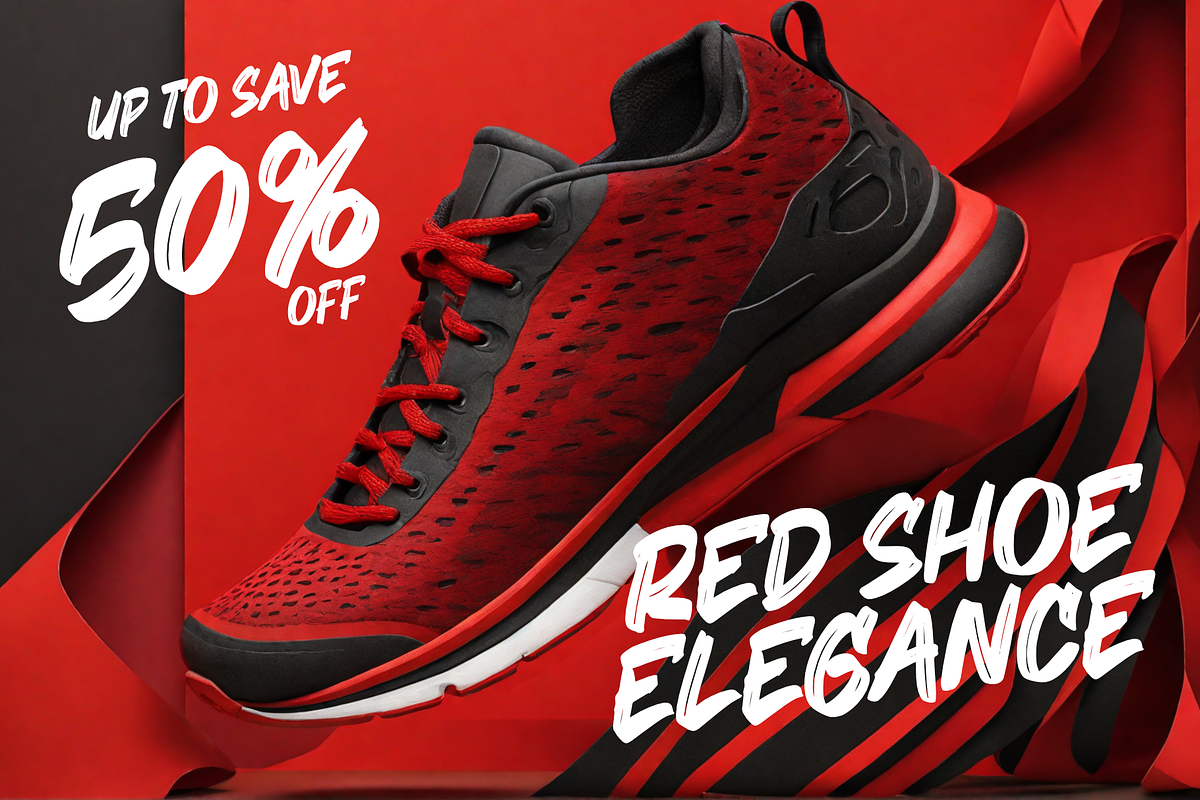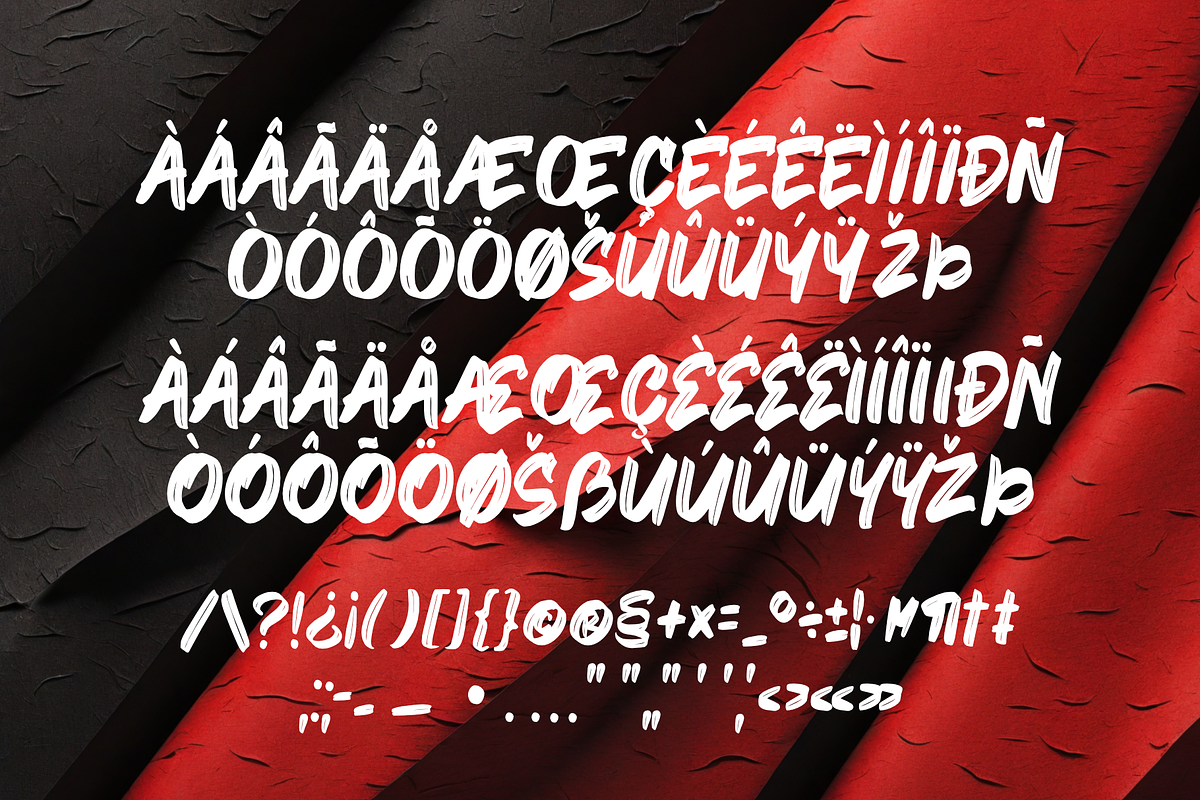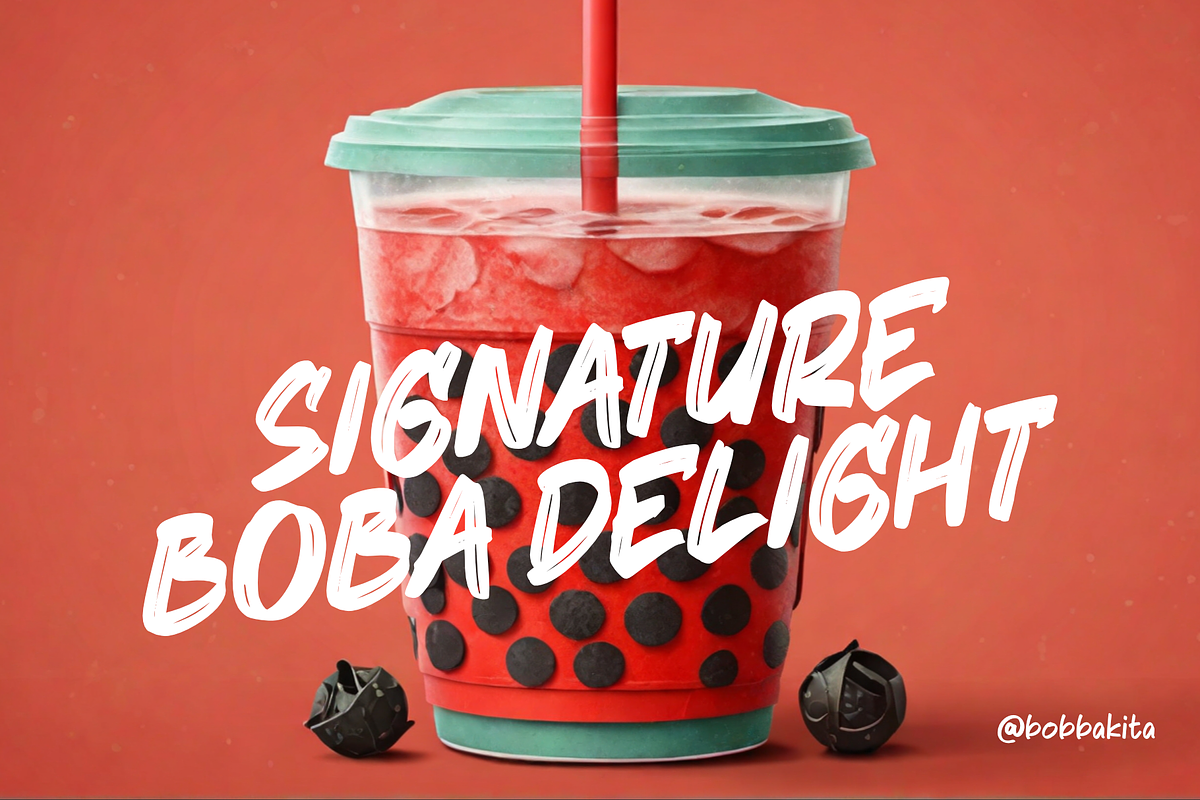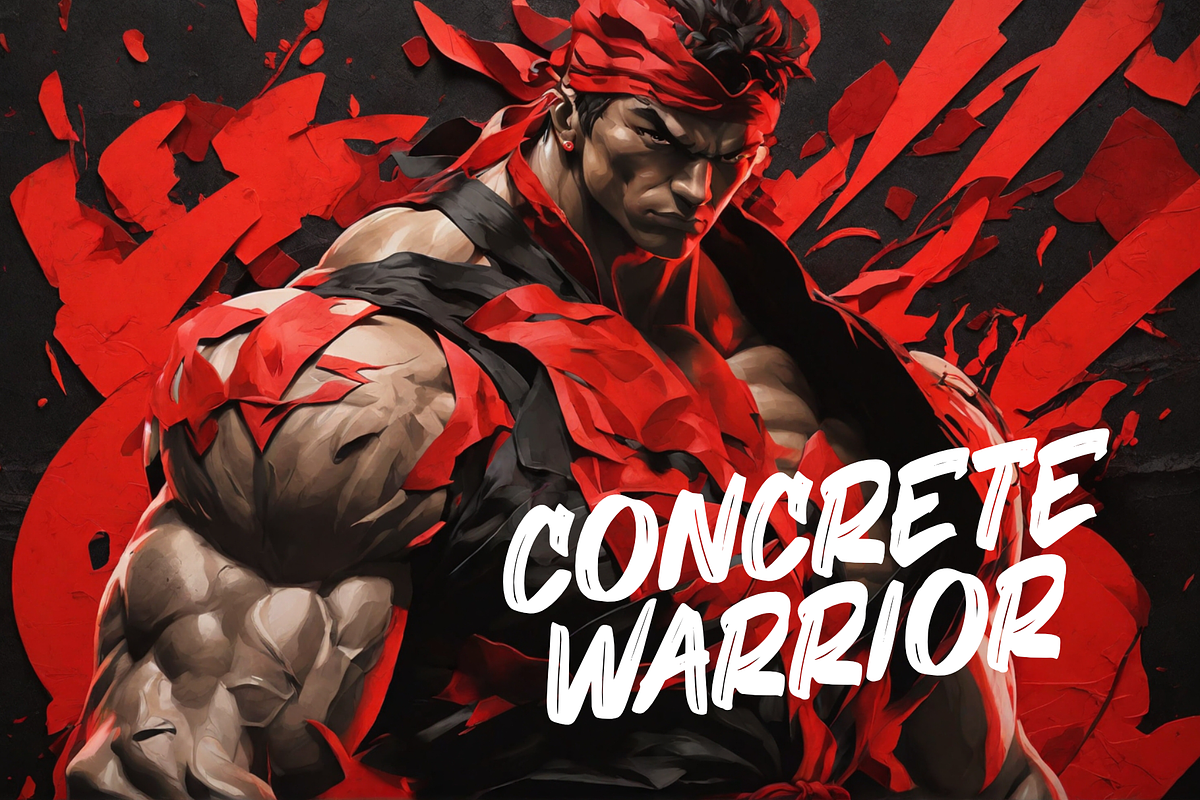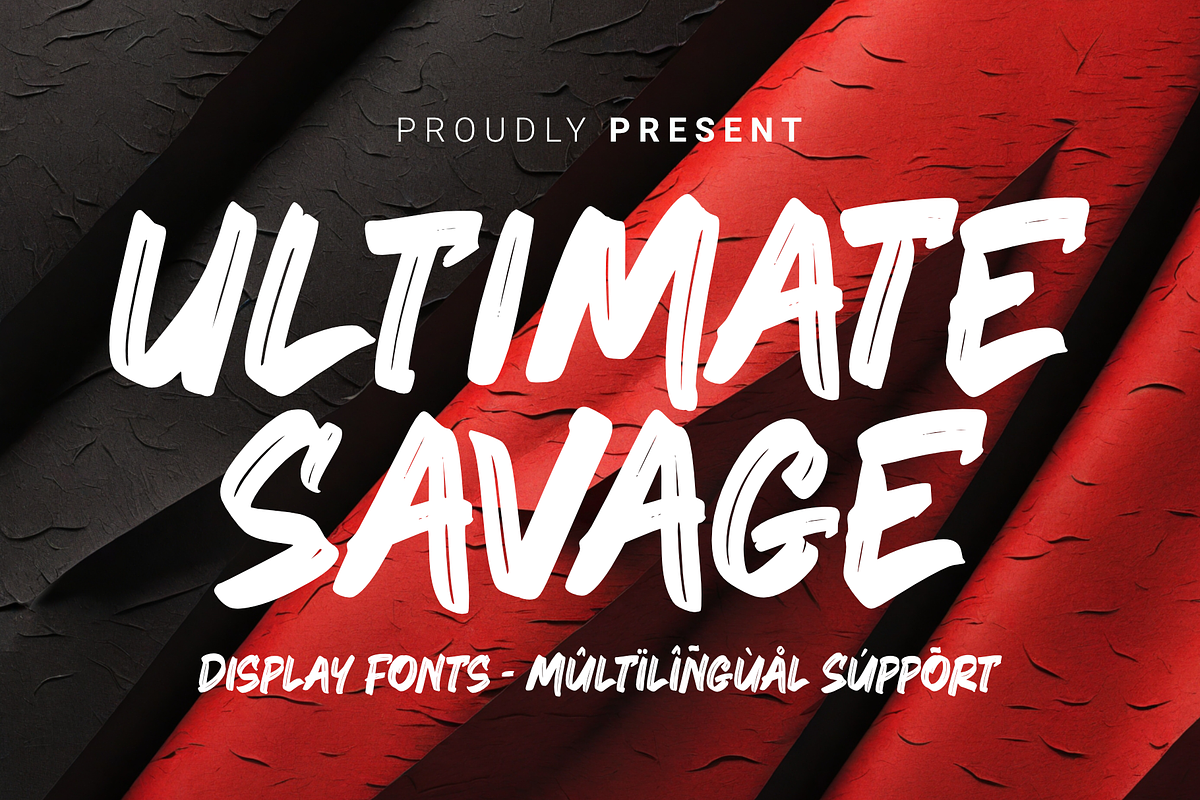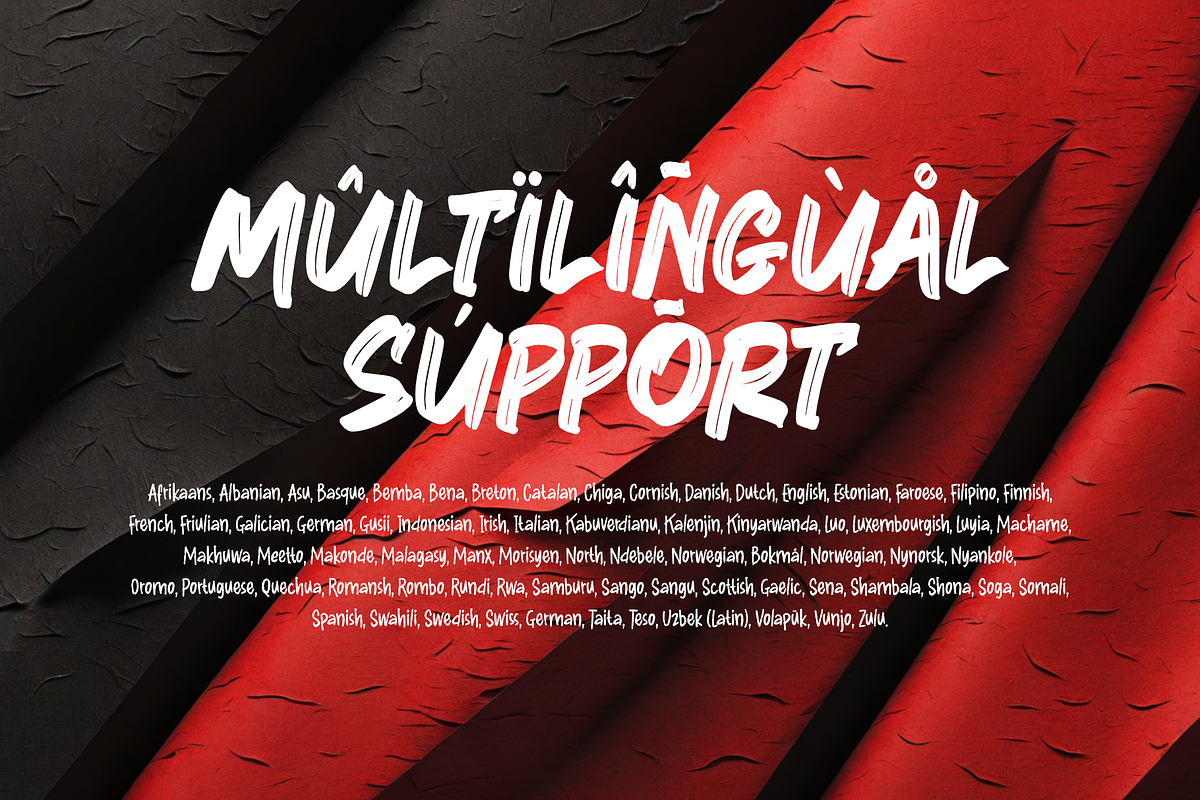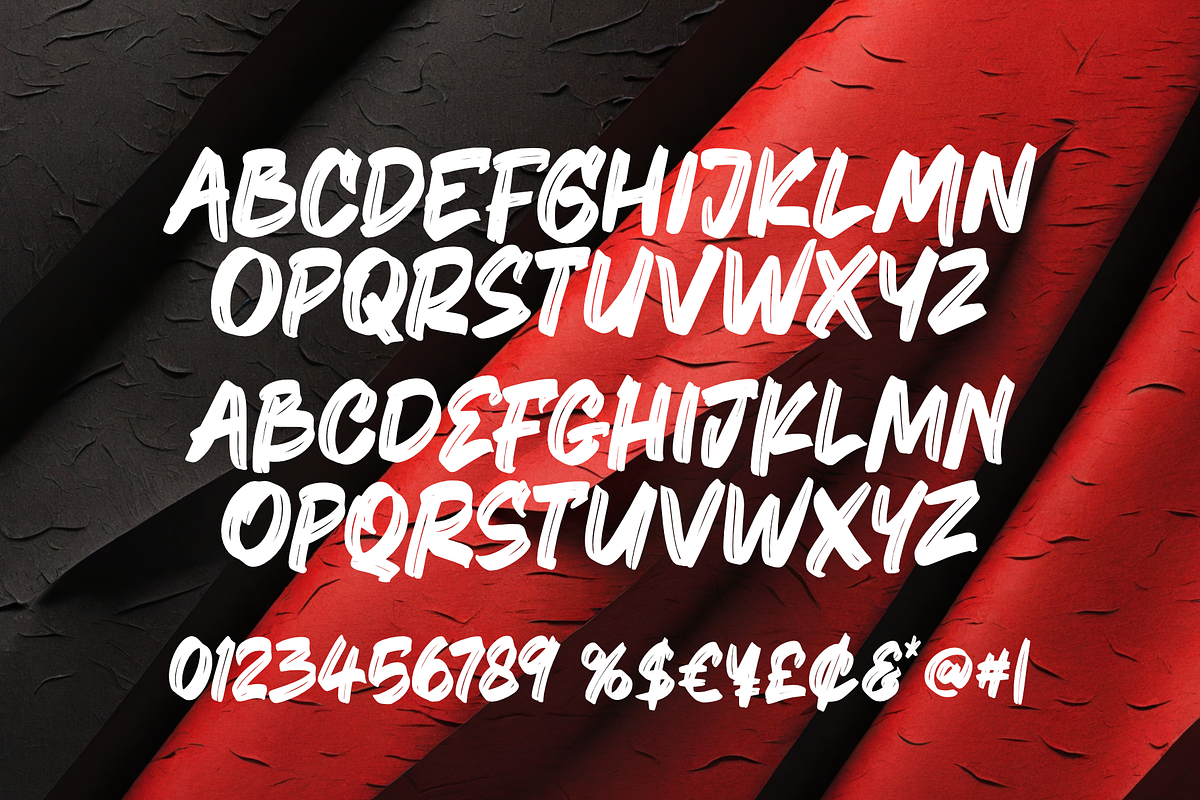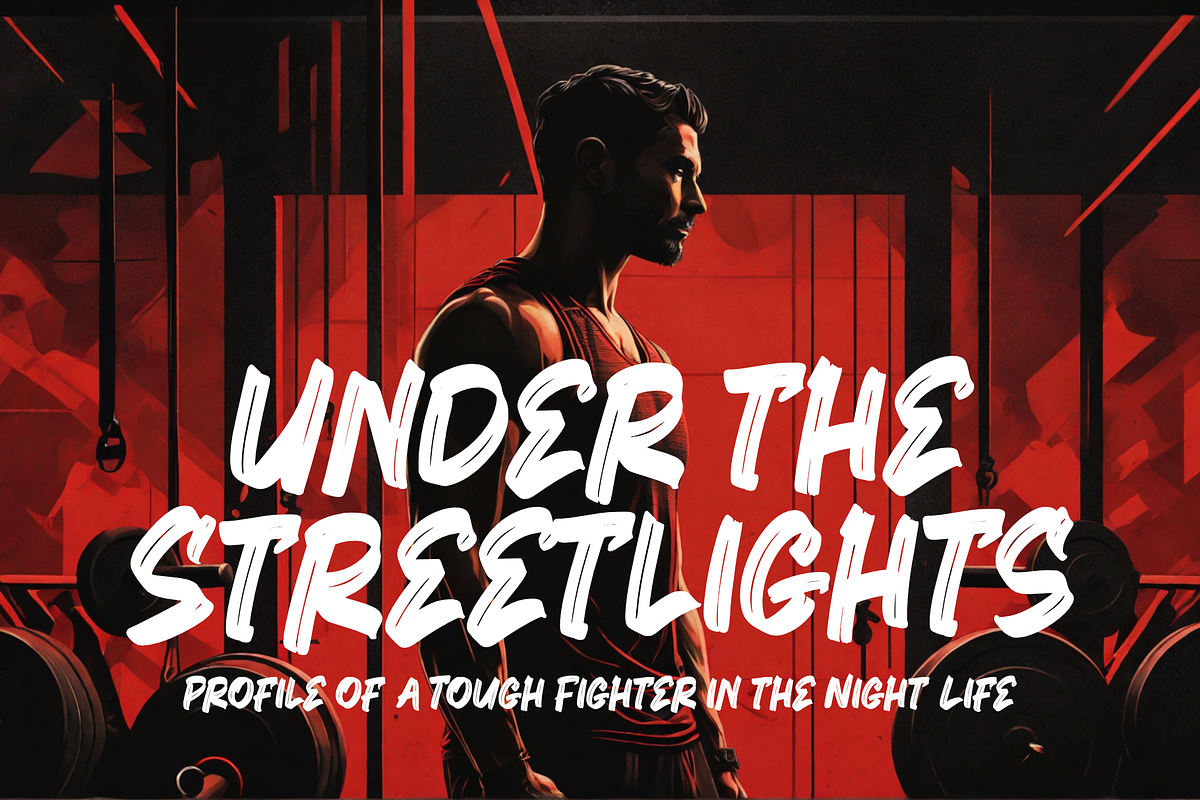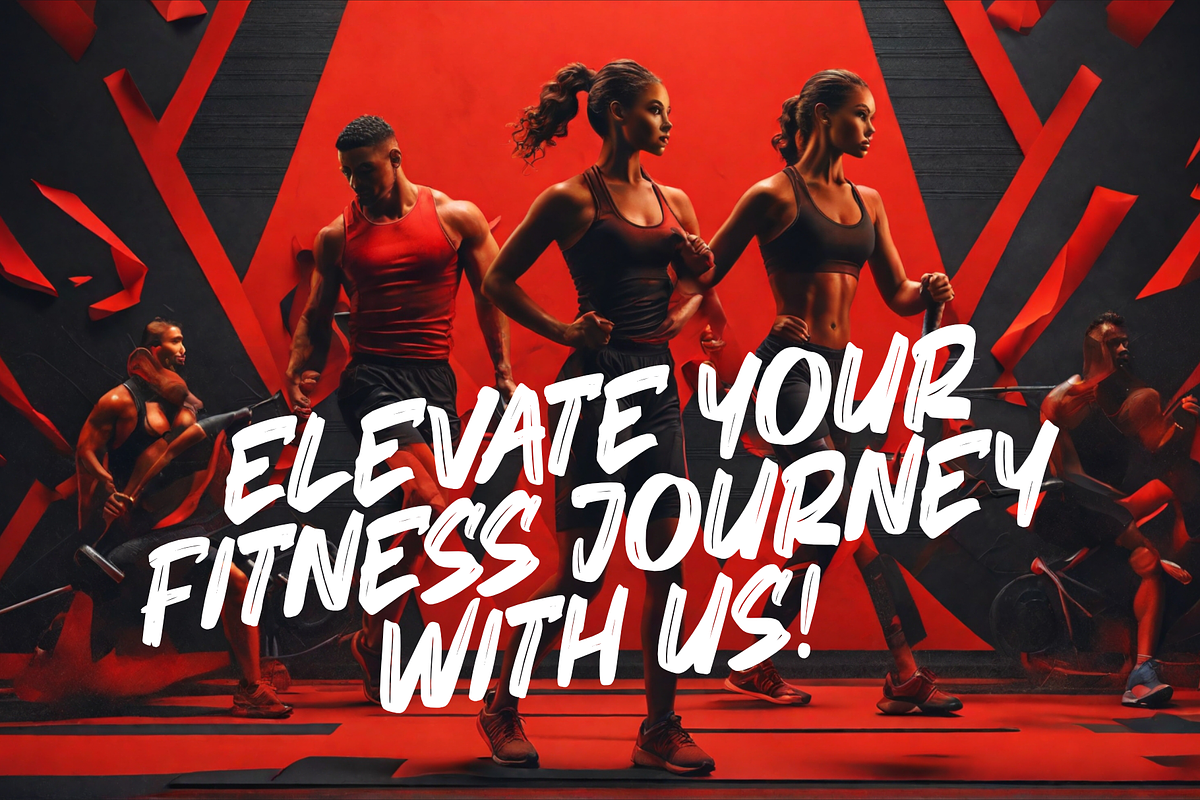
Ultimate Savage - Brush
Ultimate Savage is a type of font that embraces a simple yet elegant brush style. With a delicate brush touch, this font is capable of creating stunning and sophisticated designs. Its smooth and clean lines add a touch of grace to each character. The font is ideal for design projects that require a bold aesthetic while maintaining a polished and stylish appearance. With "Ultimate Savage," you can craft captivating and character-rich design works, providing an unforgettable allure to every typographic element.
- Multilingual Accent